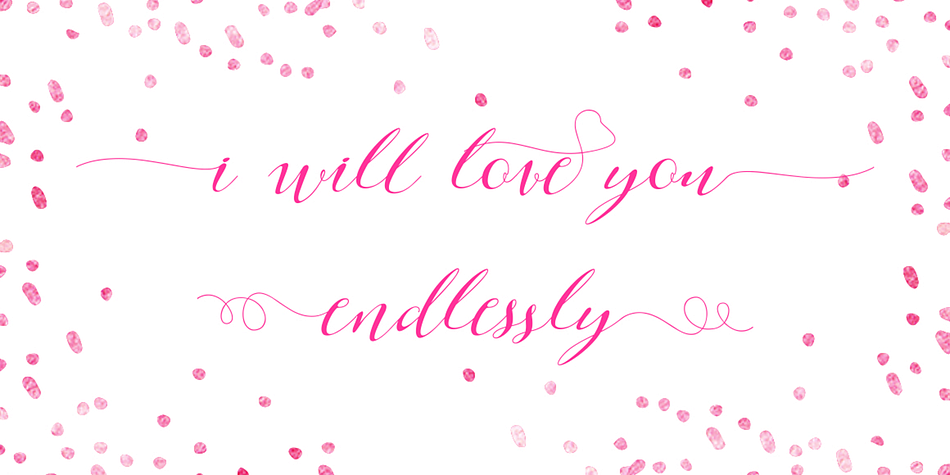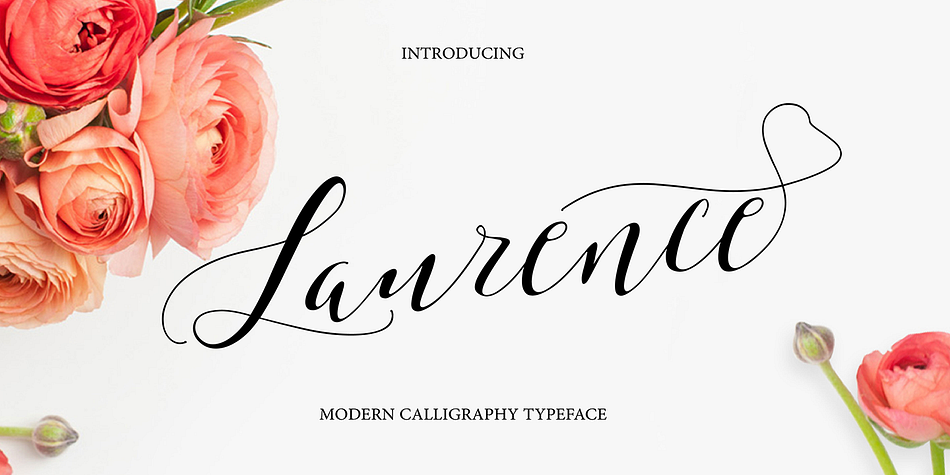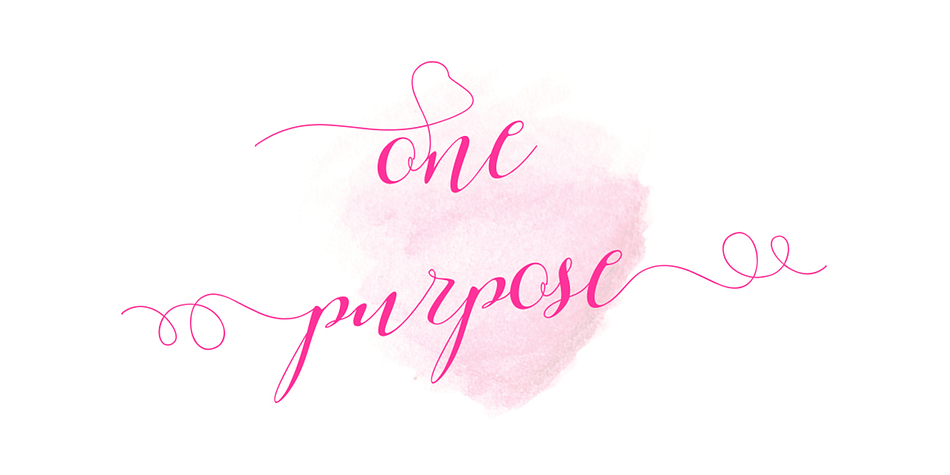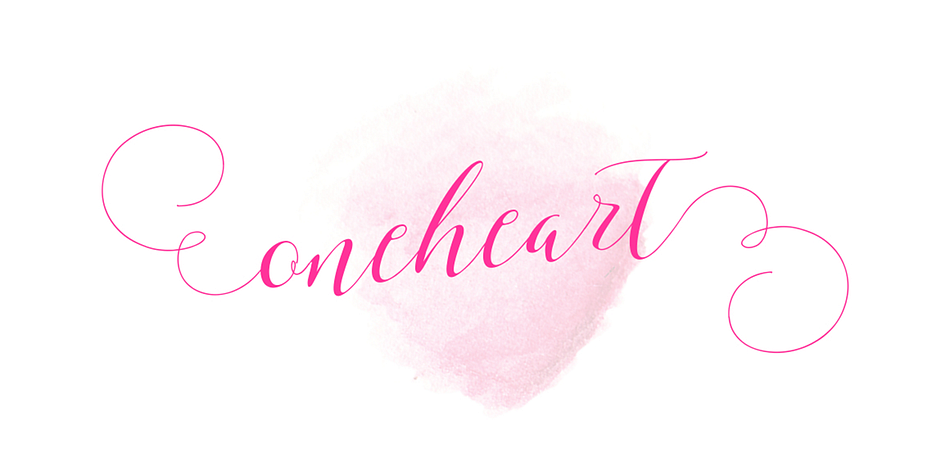
Laurence Script is a script and modern calligraphy font published by Bonjour Type.
Laurence Script is a stylish handwritten copperplate calligraphy font. It combines the characteristics of copperplate as well as contemporary typefaces. It features a dancing baseline, but still has a classic and elegant touch.
It can be used for various purposes such as headings, signatures, logos, wedding invitations, t-shirt design, letterheads, signage, labels, news, posters, badges etc.